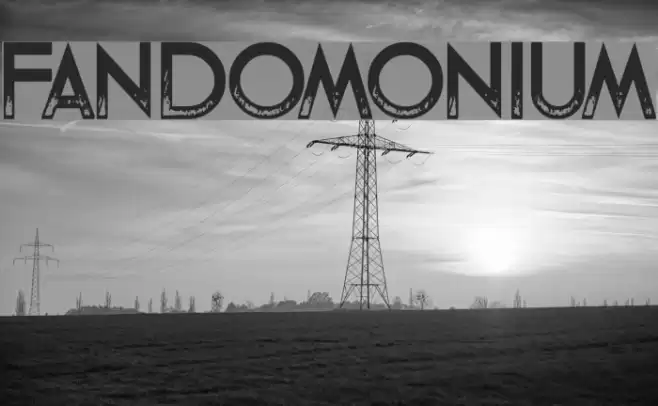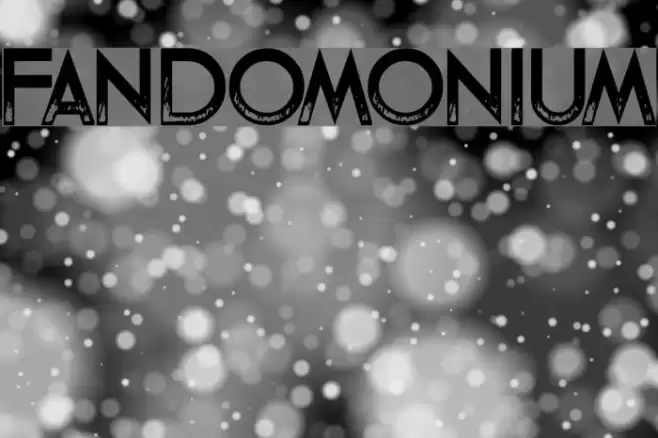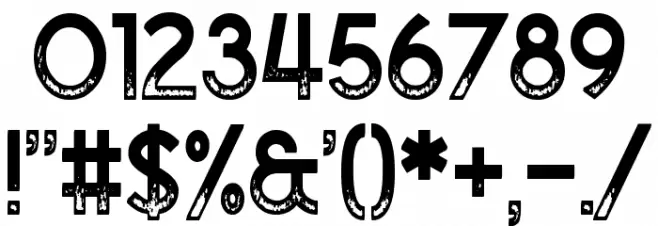
Fandomonium Font
Fandomonium Description
This font features a bold and dynamic style with a distressed texture that gives it a rugged, worn appearance. The characters are uppercase with a consistent thickness, creating a strong visual impact. The distressed effect adds a sense of movement and energy, making it ideal for projects that require a bold statement. The numerals and special characters maintain the same distressed style, ensuring a cohesive look across all elements. This font is perfect for designs that aim to capture attention and convey a sense of edginess or rebellion.
A bold, distressed font with a rugged, worn appearance from Uncategorized fonts.
- Proposed Projects: Ideal for posters, album covers, branding for edgy products, or any design needing a bold, impactful statement.